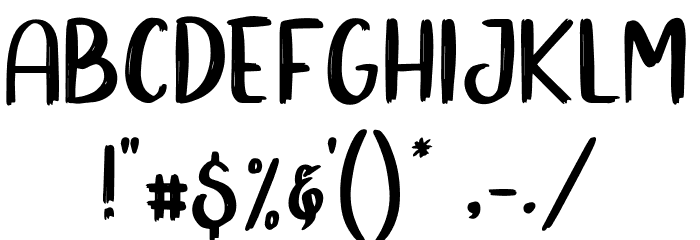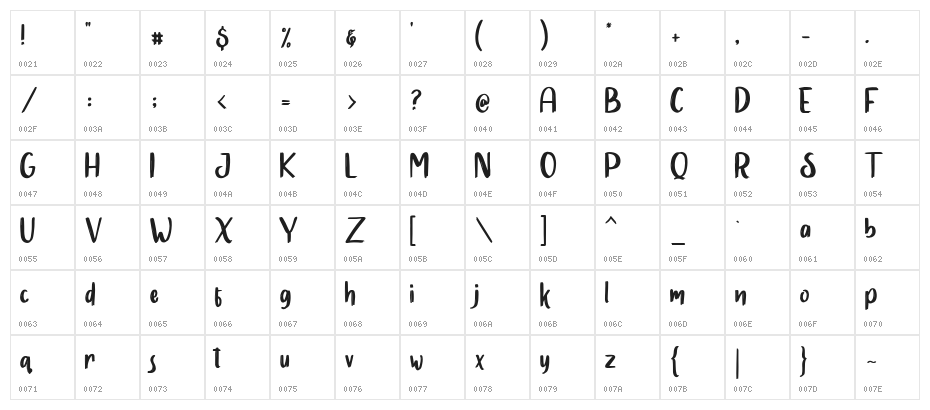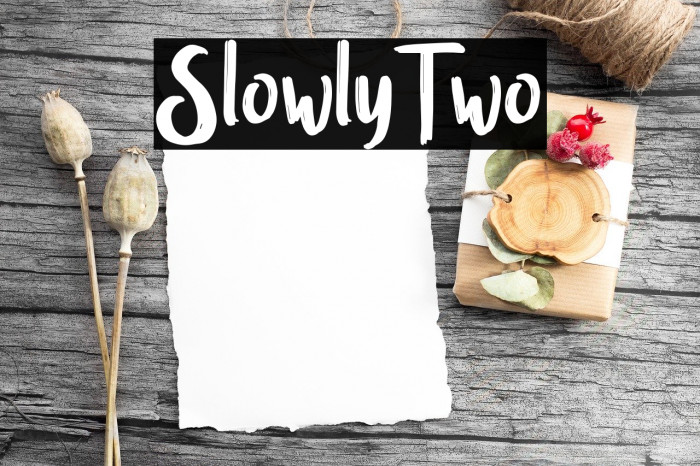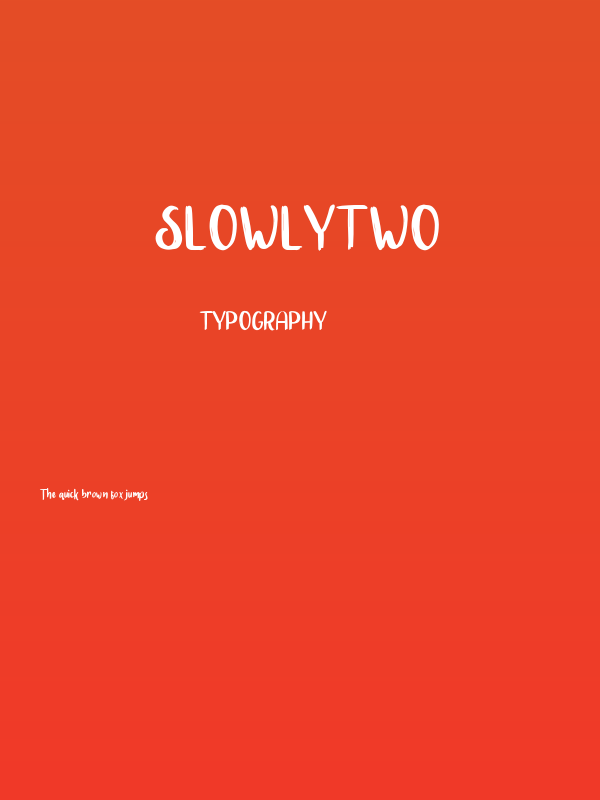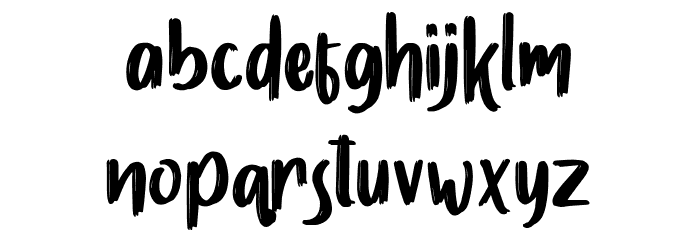
SlowlyTwo Font
SlowlyTwo Description
This font features a bold, hand-drawn style with a playful and energetic feel. The characters are slightly irregular, giving it a casual and informal appearance. The strokes are thick and uneven, adding to its dynamic and lively character. It includes both uppercase and lowercase letters, numbers, and a variety of special characters. The overall look is reminiscent of brush lettering, making it suitable for projects that require a personal touch or a creative flair.